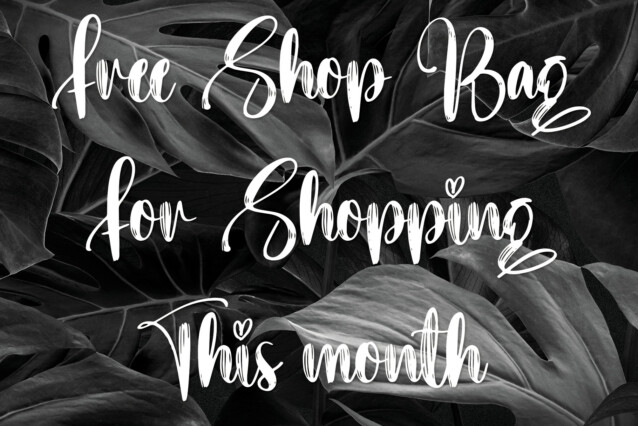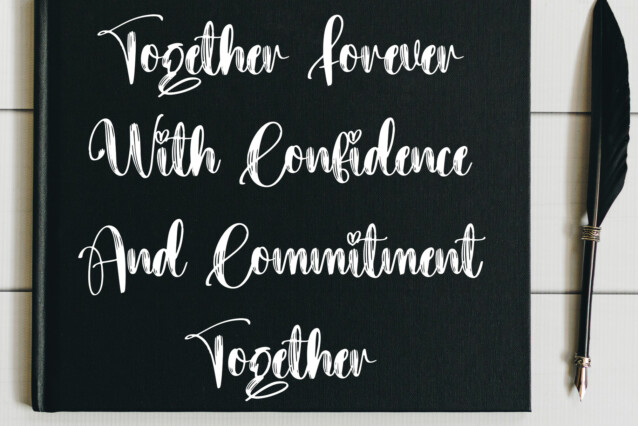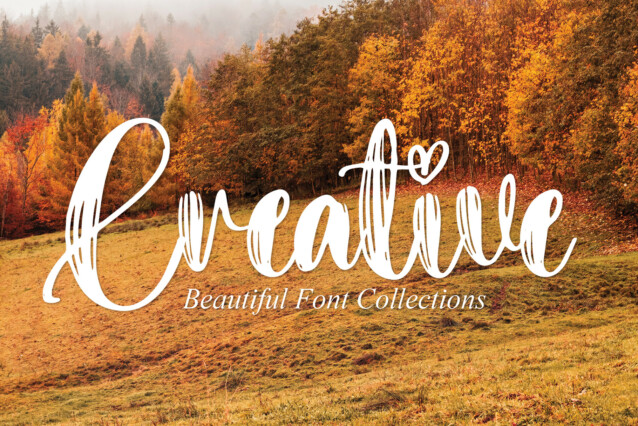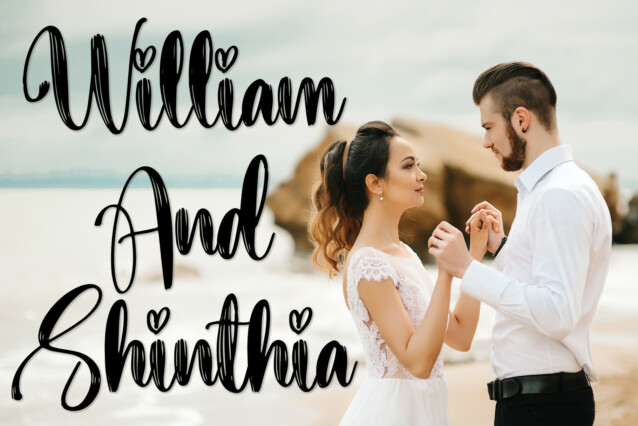
Younger Script Font
Younger Script Font is a high-quality handwritten font with interesting crosshatched details. Its latest style letters are perfect for wall displays, wedding invitations, social media post logos, advertisements, product packaging, product designs, labels, photography, watermarks, invitations, stationery, and any project that requires taste handwriting.